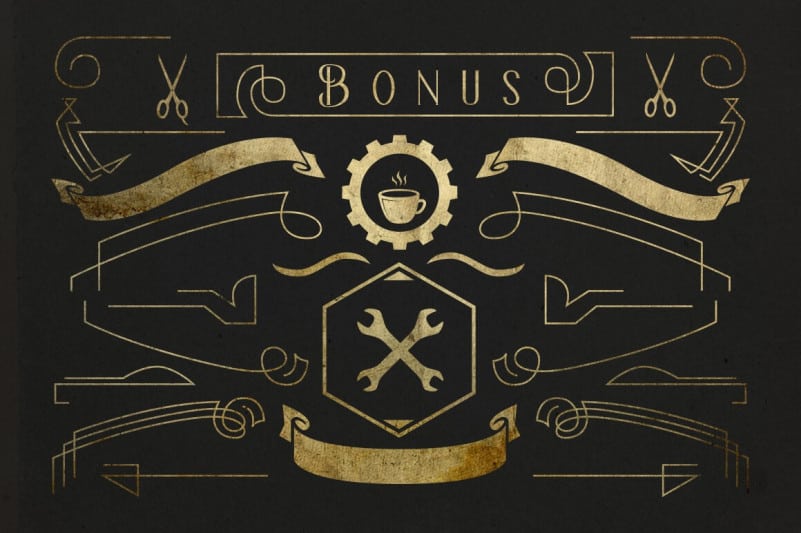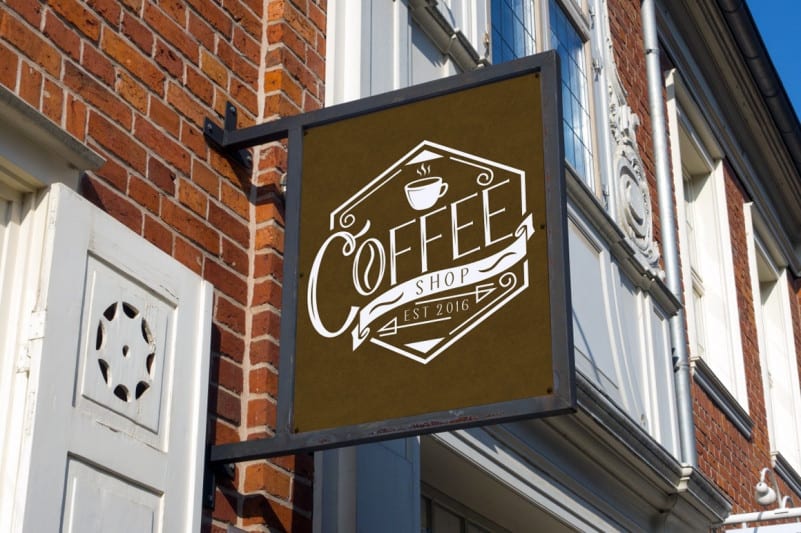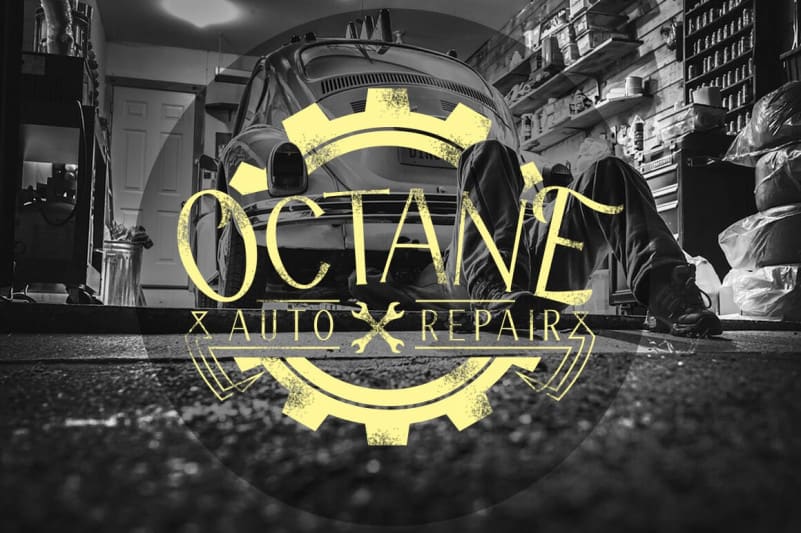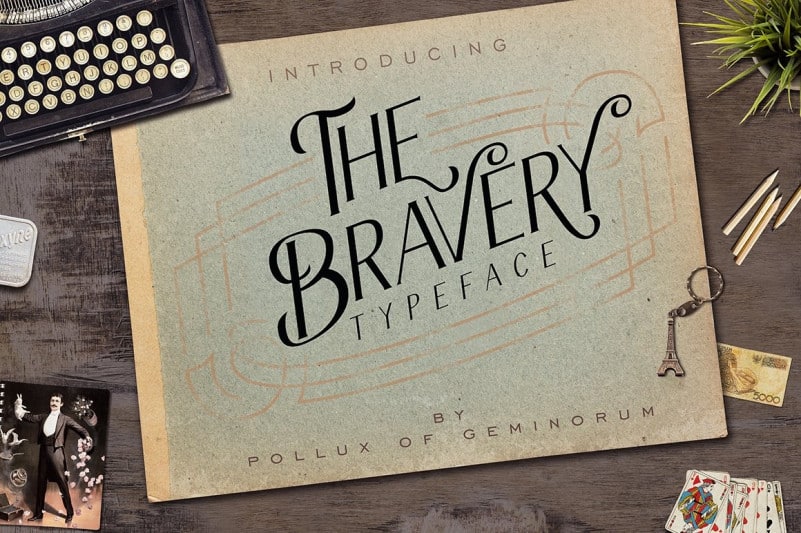
The Bravery Sans Serif Font is a serif font family, elegant and modern, also suitable for vintage design. Made from font designer named Pollux of Geminorum. It’s a very versatile font that works great in large and small sizes. Perfect for branding projects, Logo design, Clothing Branding, magazines, books, greeting / wedding cards, fashion, make up, stationery, novels, labels or any type of advertising purpose, or simply as a stylish text overlay to any background image.